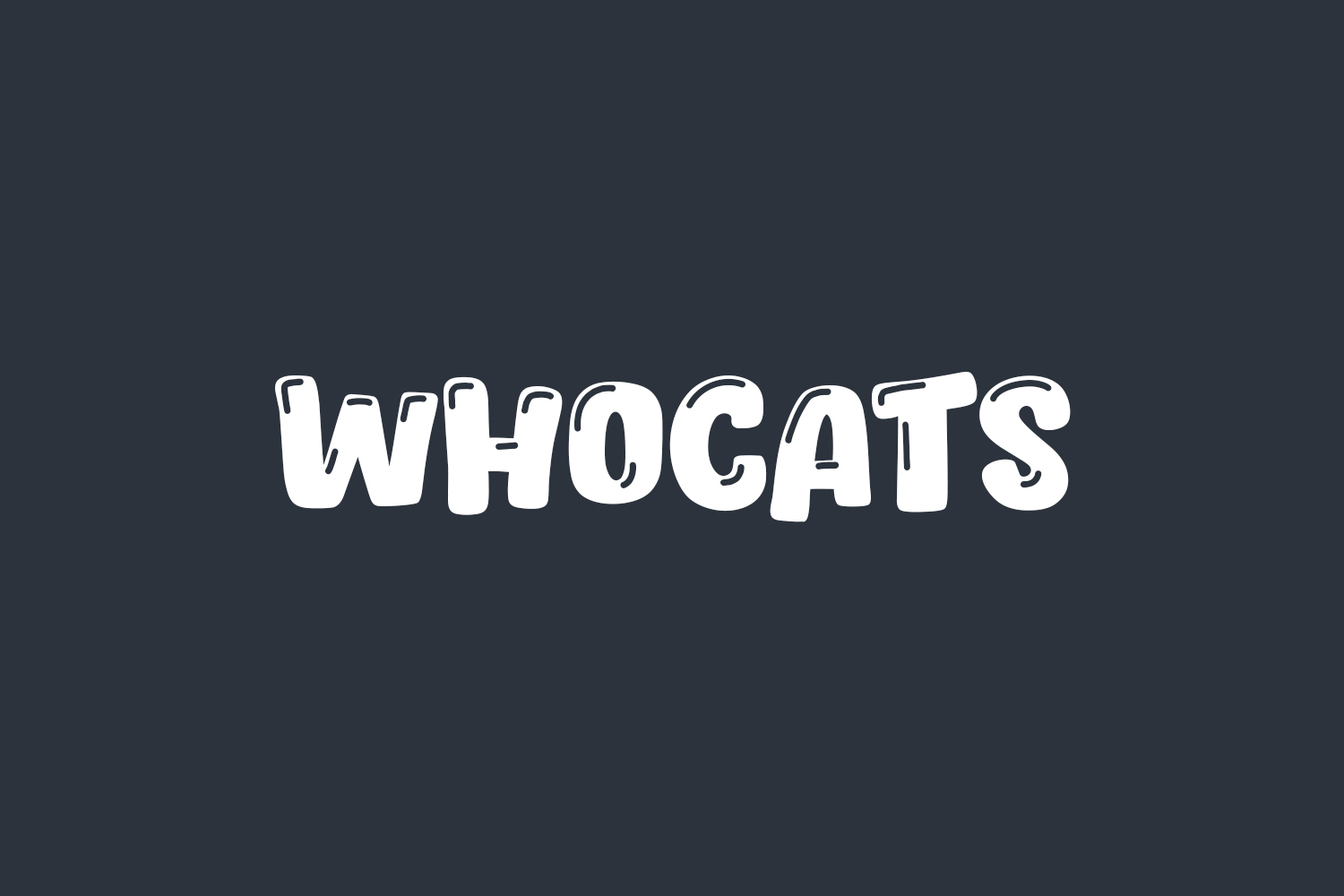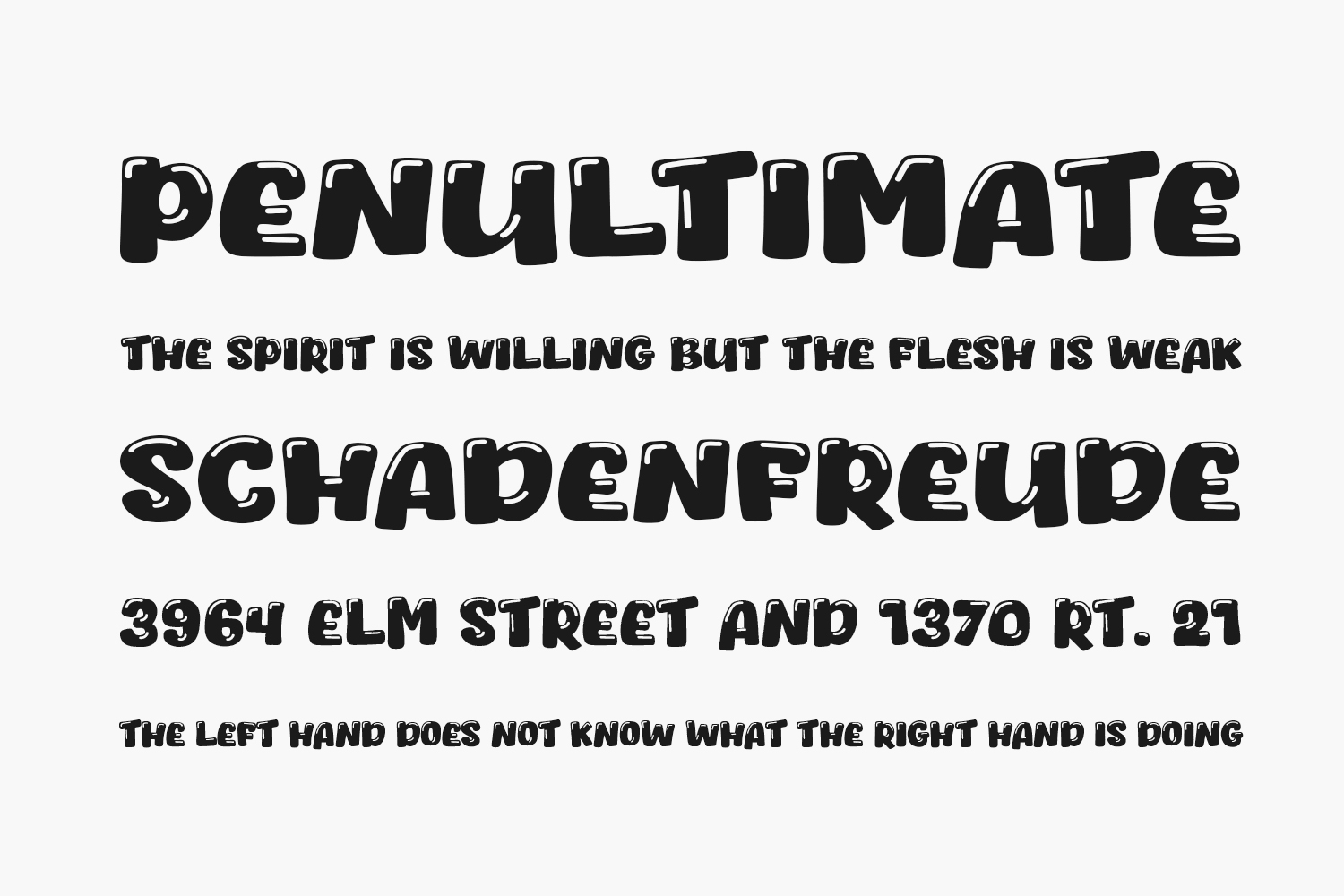
Whocats Free Font is a sleek and stylish display font, ideal for a wide range of projects including posters, logos, magazines, book covers, banners, and more! Elevate your designs with this exceptional font and witness its ability to make them truly exceptional. With its versatility, Whocats seamlessly complements a vast array of creative endeavors, ensuring your projects shine brightly. Download the font for free if you need it for personal or commercial use.